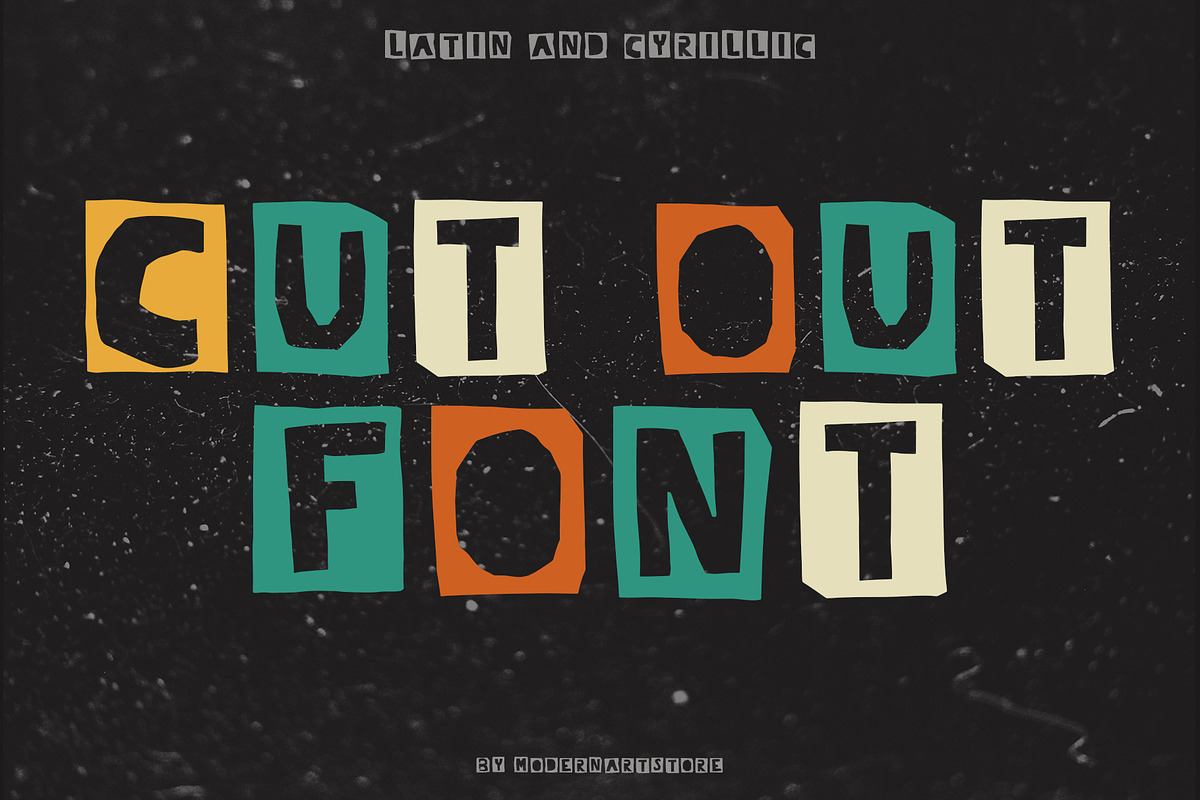
The CUT OUT FONT Paper Cut Handmade Free Download is a unique and artistic typeface designed to replicate the intricate look of paper cut designs. With its bold, handmade appearance and delicate details, this font is perfect for creative projects that require a crafty, DIY aesthetic. Whether you're working on greeting cards, invitations, posters, or branding, this font brings a touch of creativity and handmade charm to your designs.
CUT OUT FONT Paper Cut Handmade Free Download is ideal for designers who want to create artistic, textured designs that stand out. Perfect for crafting, wedding invitations, and more, this font adds a unique and artistic feel to your work. Download this stunning handmade font today and infuse your designs with the beauty of paper-cut artistry!